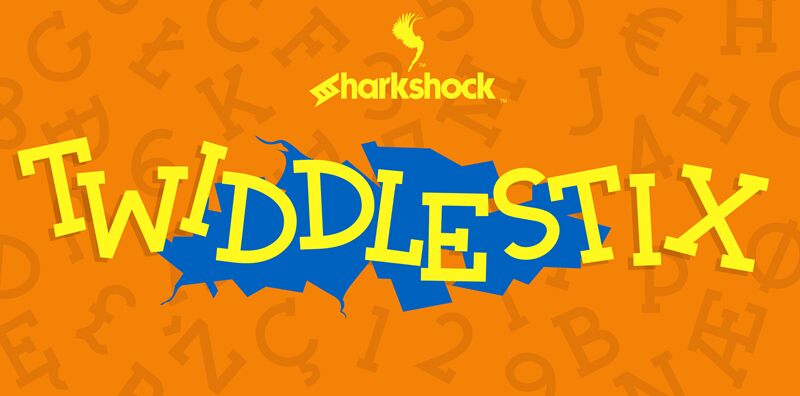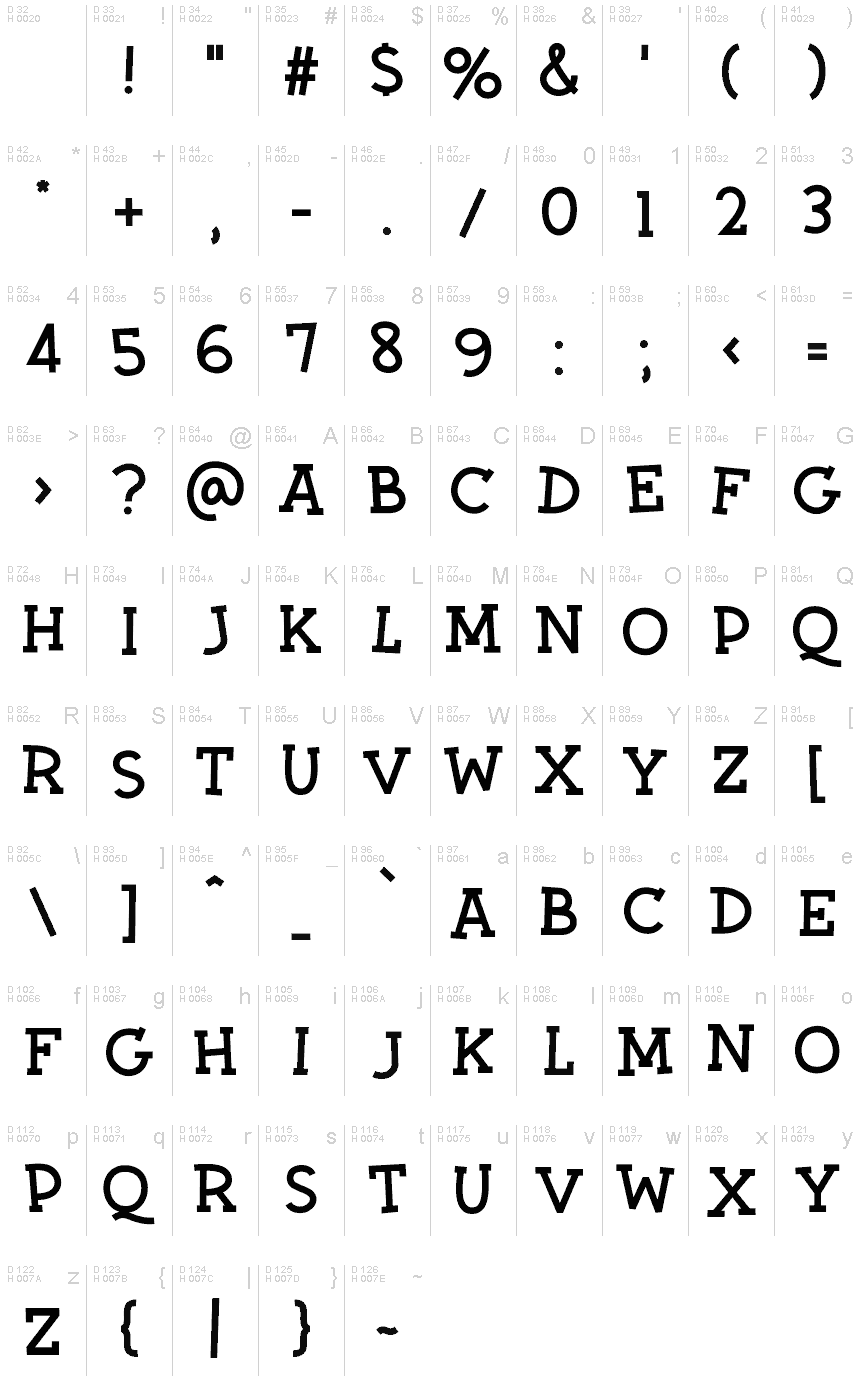
Twiddlestix
by Sharkshock
Add a little wackiness to your next project. Twiddlestix is a whimsical display font designed with an emphasis on fun. This irregular serif contains basic latin, extended latin, diacritics, punctuation, and kerning. The lowercase characters display some variants to their uppercase counterparts and
serve as "alternates". Although kerning is added slight overlap should be expected especially with European accents. Use Twiddlestix for a children's book, school project, or toy packaging. Many languages are supported but additional characters can be added for a fee.